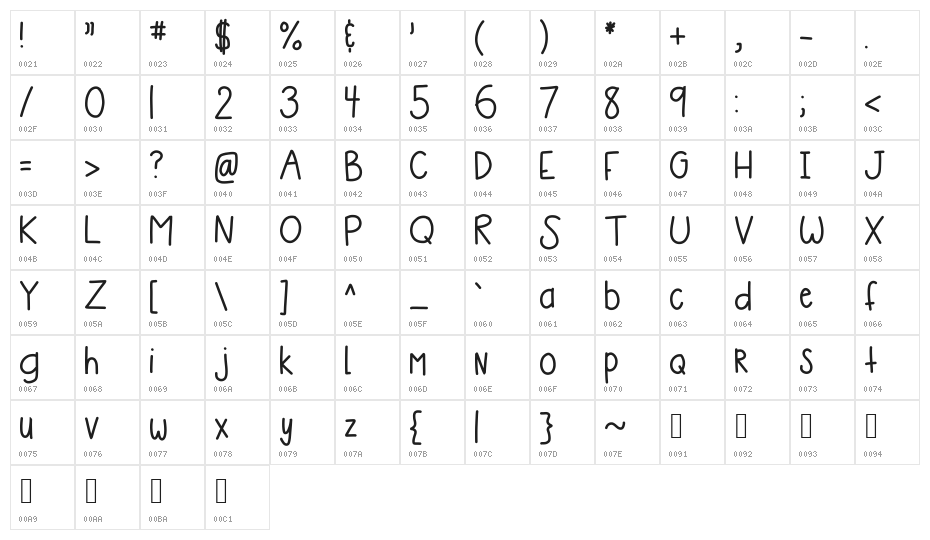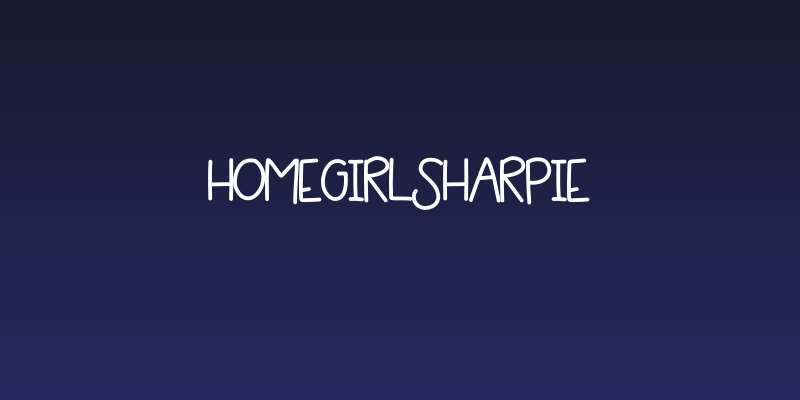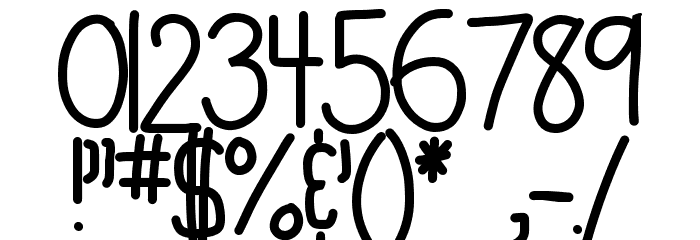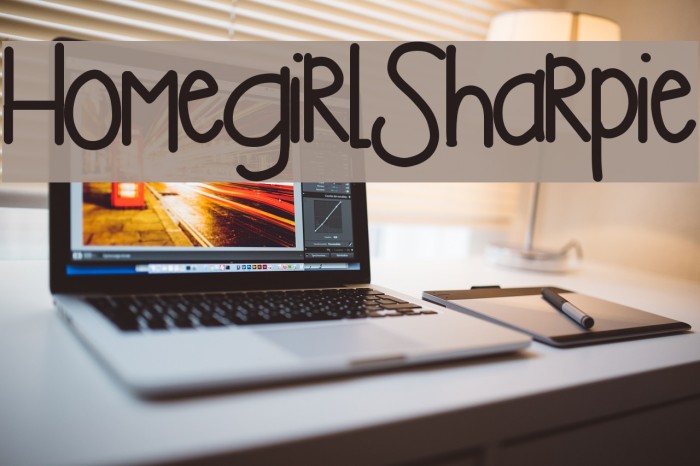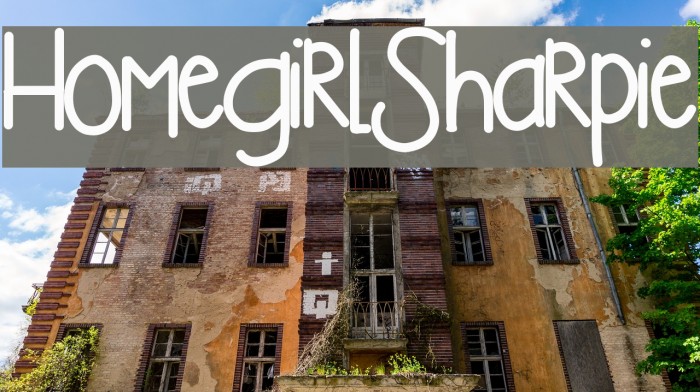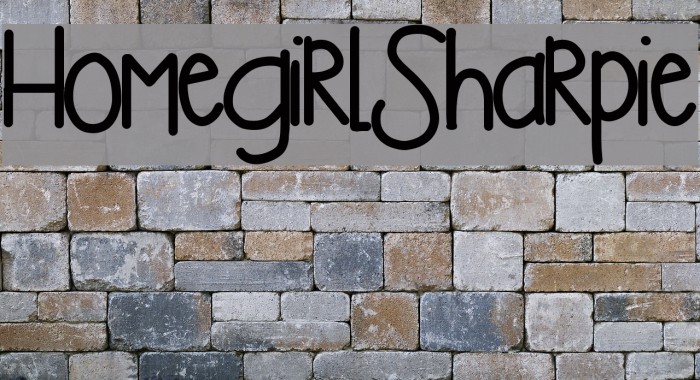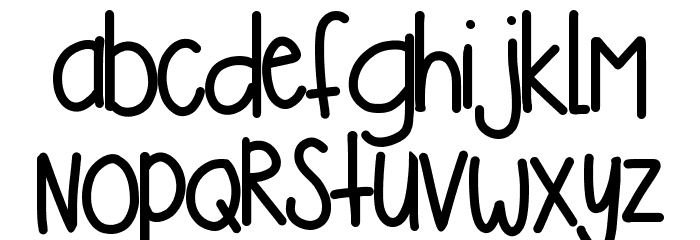
HomegirlSharpie Font
HomegirlSharpie Description
This font features a playful, handwritten style that mimics the look of writing with a marker. The characters are bold and rounded, with a casual and approachable feel. The uppercase and lowercase letters maintain consistent proportions, while the numerals and special characters are designed to complement the overall aesthetic. The strokes are smooth and uniform, giving the font a clean and modern appearance. It's suitable for projects that require a personal touch, such as invitations, posters, or branding materials. The font's simplicity and readability make it versatile for various design applications.
| Use Case | Headlines, Logos, Informal text |
| Proposed Projects | Ideal for invitations, posters, branding, and any project needing a personal touch. |